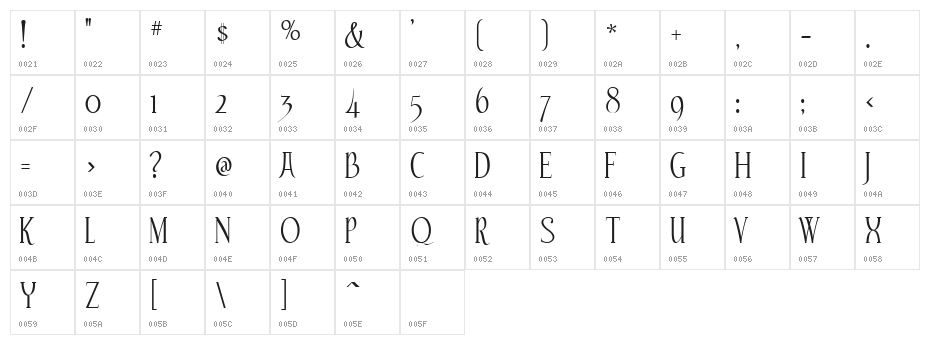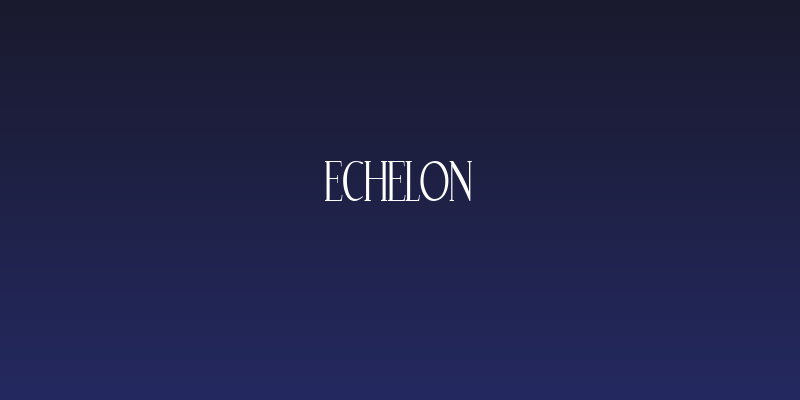
Echelon Font
| 全体的なスタイル | Elegant and modern |
| 用途 | Headlines, Logos, Editorial design |
| おすすめプロジェクト | Ideal for luxury branding, editorial design, fashion magazines, and elegant invitations. |